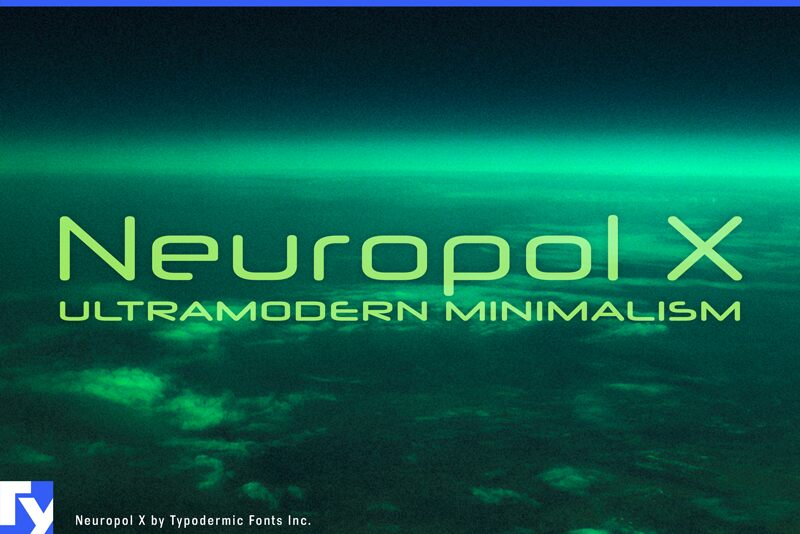
Neuropol X, designed by Ray Larabie of Typodermic Fonts, is a free futuristic geometric sans serif. Its monoline strokes form broad, low letters with flat-ended strokes, rounded rectangular curves, and generous internal openings, and the overall silhouette recalls molded labels on sleek late twentieth-century science-fiction hardware.
As an electronic wordmark, it gives technology branding and game interfaces the look of a label from a near-future vehicle dashboard through smooth geometry and precise mechanical gaps. The same streamlined construction also suits automotive event posters, electronic music packaging, and space-themed publishing because it shares the crisp geometry of technical diagrams and imagined machinery.